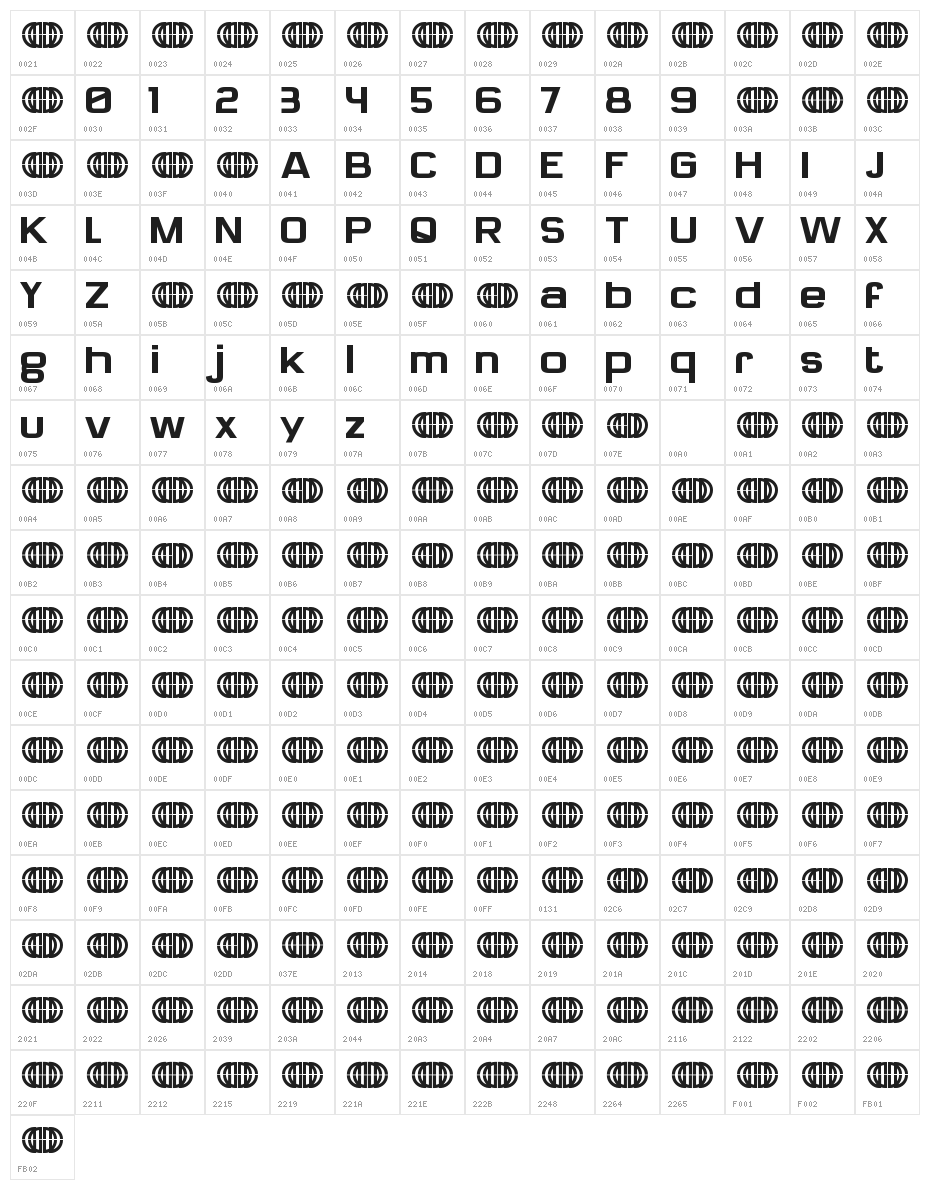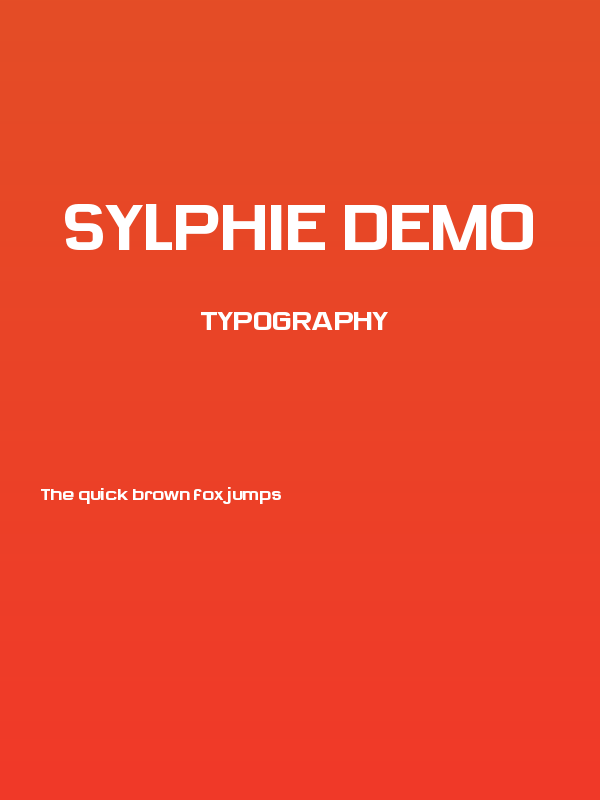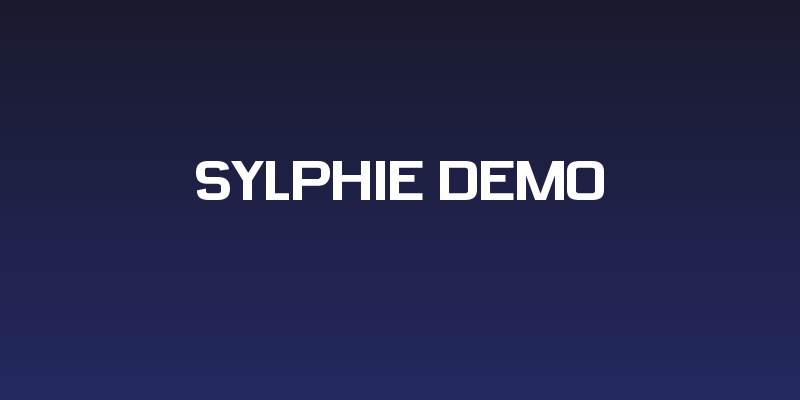
Sylphie DEMO Font
This font features a bold and modern design with a geometric structure. The characters are wide and have a uniform stroke width, giving them a strong and impactful appearance. The uppercase letters are particularly striking, with a squared-off style that adds to the contemporary feel. The lowercase letters maintain the same geometric aesthetic, ensuring consistency across the typeface. The numerals are clear and easy to read, matching the boldness of the alphabet. Special characters are included, designed with the same attention to detail and modern flair. This font is ideal for projects that require a strong visual presence.
| Proposed Projects | Ideal for branding, headlines, posters, and any design requiring a strong visual impact. |